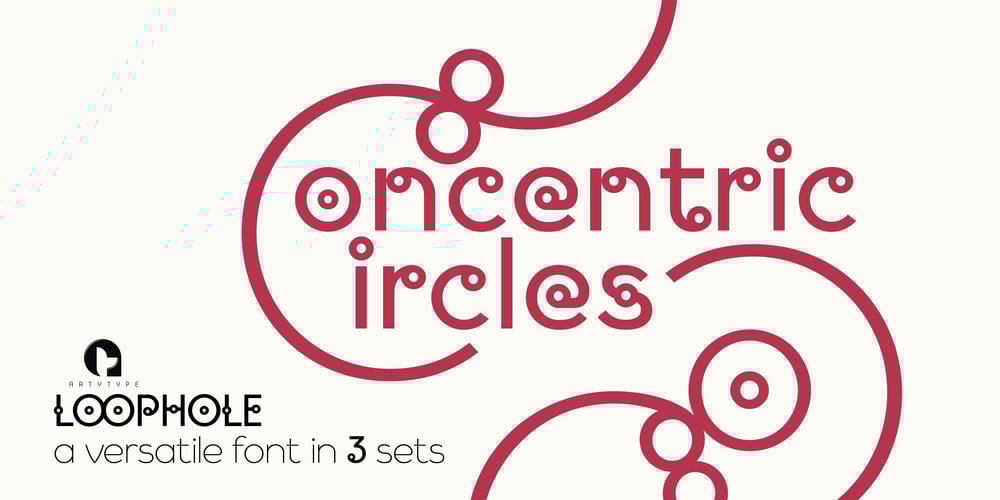
Loophole
Loophole font
Loophole Font Family was designed by James Marsh and published by ArtyType. Loophole contains 3 styles and family package options. Loophole is a visually striking display typeface in 3 weights (Light, Regular & Bold), its DNA firmly rooted in the Cyclic Sans family which makes the perfect foil to this somewhat decorative font styling.The Loophole name is quite simply based on the ubiquitous hole motif, which is strategically deployed on each character across the 3 font styles. Each font contains an extended Latin character set covering Western & Central Europe, the Baltic States & Turkey.